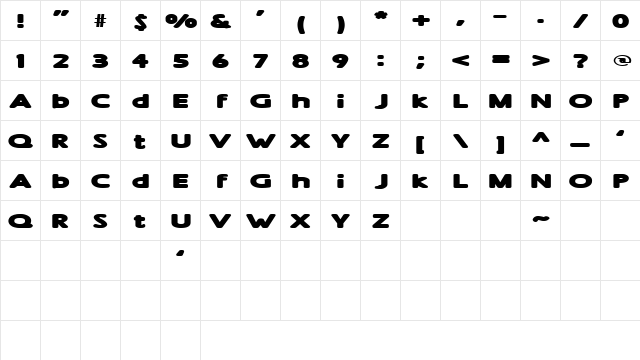
Sham ExtraBold Font Preview
Sham ExtraBold
Sham ExtraBold Font Details
Design Context for Sham Typeface
Sham is a composed and adaptable typeface that performs quietly and consistently across a wide range of design contexts. Its bold stroke weight gives it real presence on the page.